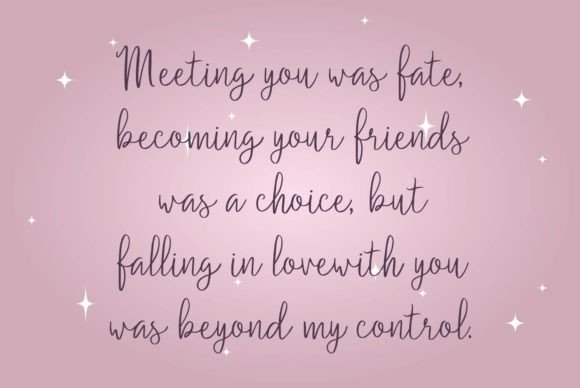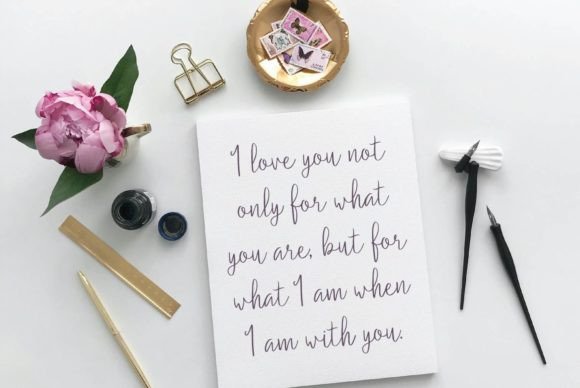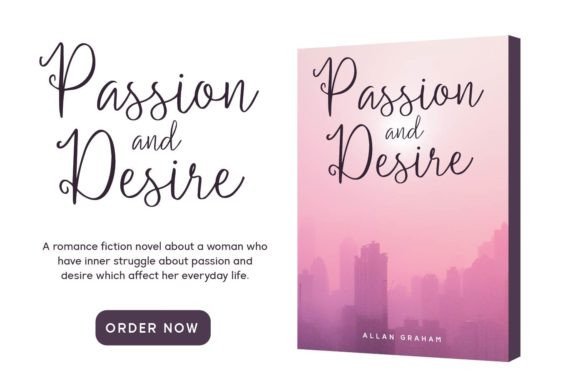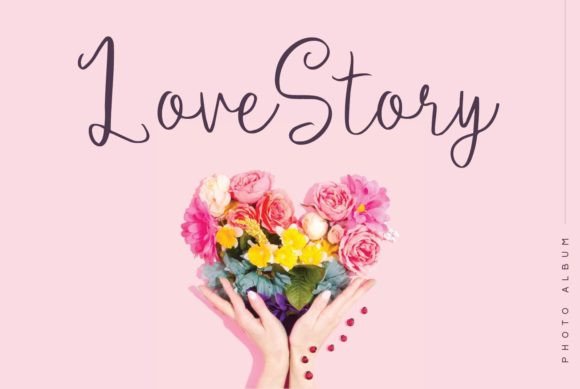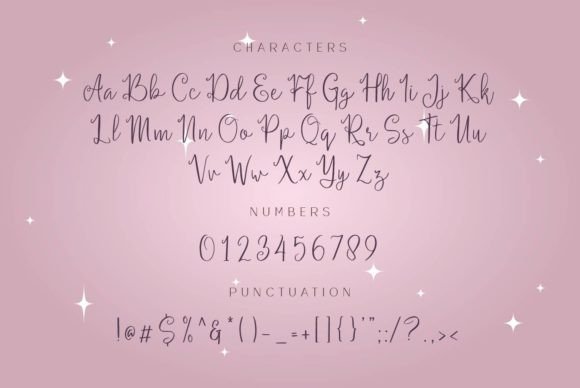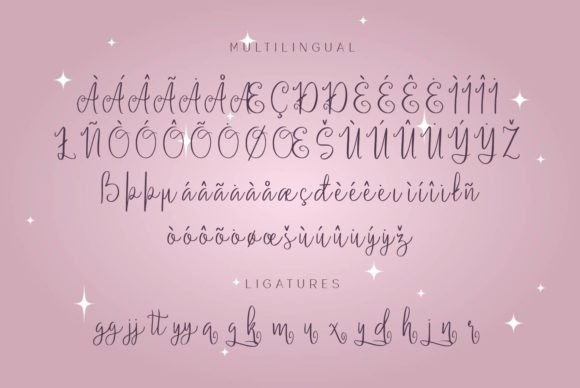
Finger Story Font: Elevate Your Crafty Projects with Authentic Typography
In the world of design, typography plays a crucial role in conveying the message and aesthetic of a project. For crafty projects, a delicate and well-rounded handwritten font can make all the difference. Introducing Finger Story Font, a beautiful and elegant typeface perfect for adding a touch of authenticity to your designs.
What is Finger Story Font?
Finger Story Font is a carefully crafted handwritten font, designed to bring a sense of warmth and personality to your projects. Its delicate and well-rounded features make it an ideal choice for crafty projects that require a touch of elegance. Whether you’re working on wedding invitations, birthday cards, personal branding, or elegant logos, Finger Story Font is the perfect companion.
Key Features of Finger Story Font
- Delicate and Well-Rounded Design: Finger Story Font boasts a delicate and well-rounded design, making it perfect for crafty projects that require a touch of elegance.
- Handwritten Style: The font’s handwritten style adds a personal touch to your designs, making them stand out from the crowd.
- Authentic Typography: Finger Story Font is designed to provide authentic typography, giving your designs a genuine and heartfelt feel.
- Versatile: The font is versatile and can be used for a wide range of projects, including wedding invitations, birthday cards, personal branding, elegant logos, and more.
Use Cases for Finger Story Font
Finger Story Font is a versatile typeface that can be used for various crafty projects. Here are some use cases to get you started:
- Wedding Invitations: Add a touch of elegance to your wedding invitations with Finger Story Font. Its delicate design and handwritten style make it perfect for formal and informal wedding invitations.
- Birthday Cards: Create personalized birthday cards with Finger Story Font. The font’s playful and elegant design makes it ideal for kids’ and adult birthday cards.
- Personal Branding: Establish your personal brand with Finger Story Font. The font’s unique and elegant design makes it perfect for logos, business cards, and other branding materials.
- Elegant Logos: Create stunning logos with Finger Story Font. The font’s delicate design and handwritten style make it perfect for luxury brands, boutique businesses, and creative agencies.
Why Choose Finger Story Font?
With so many fonts available, why choose Finger Story Font? Here are some compelling reasons to consider:
- Unique Design: Finger Story Font boasts a unique and elegant design that sets it apart from other fonts.
- Easy to Read: The font is easy to read, making it perfect for body text and headings.
- Highly Versatile: Finger Story Font is highly versatile and can be used for a wide range of projects.
- Authentic Feel: The font’s handwritten style and delicate design give it an authentic feel that’s perfect for crafty projects.
Tips for Using Finger Story Font
To get the most out of Finger Story Font, here are some tips to keep in mind:
- Pair with Other Fonts: Pair Finger Story Font with other fonts to create a unique and visually appealing typography.
- Experiment with Colors: Experiment with different colors to find the perfect match for your project.
- Use for Headings and Body Text: Use Finger Story Font for headings and body text to create a cohesive and elegant design.
Finger Story Font is a beautiful and elegant handwritten font perfect for crafty projects that require authentic typography. Its delicate design, handwritten style, and versatility make it an ideal choice for wedding invitations, birthday cards, personal branding, elegant logos, and more. With its unique design, easy readability, and authentic feel, Finger Story Font is a must-have for designers and crafters looking to elevate their projects.